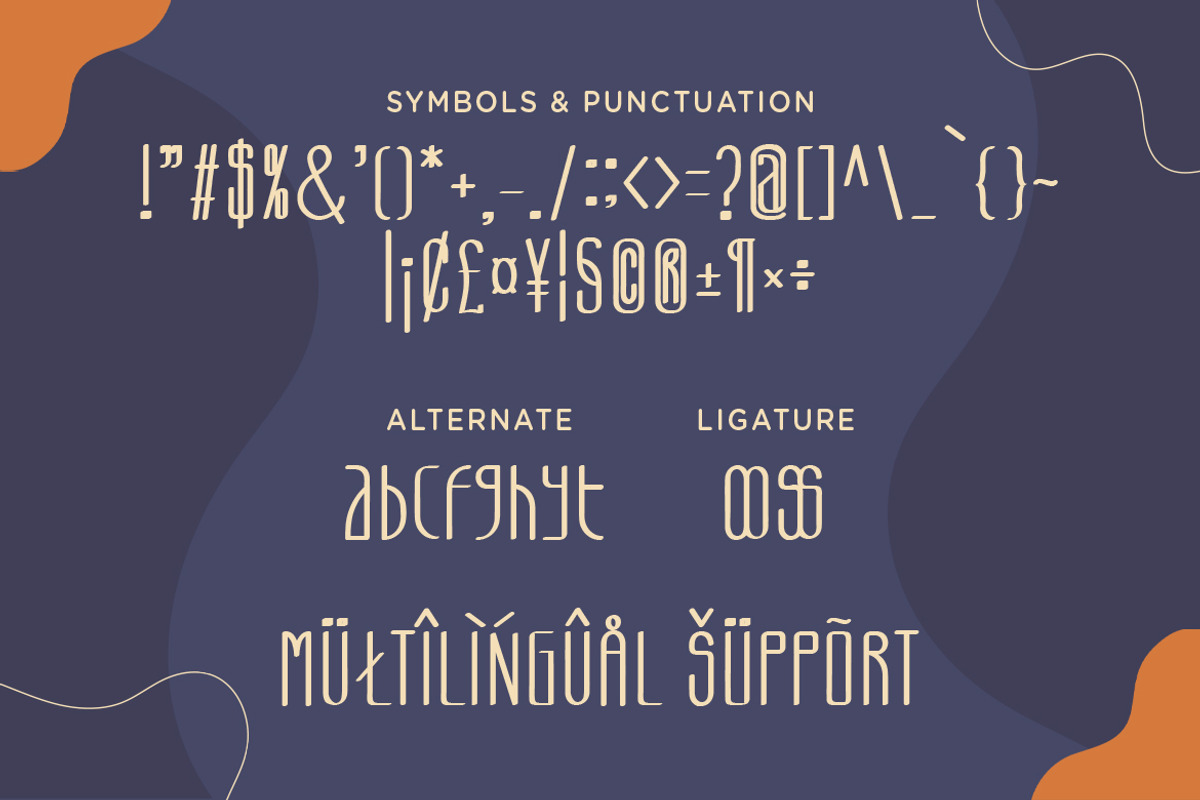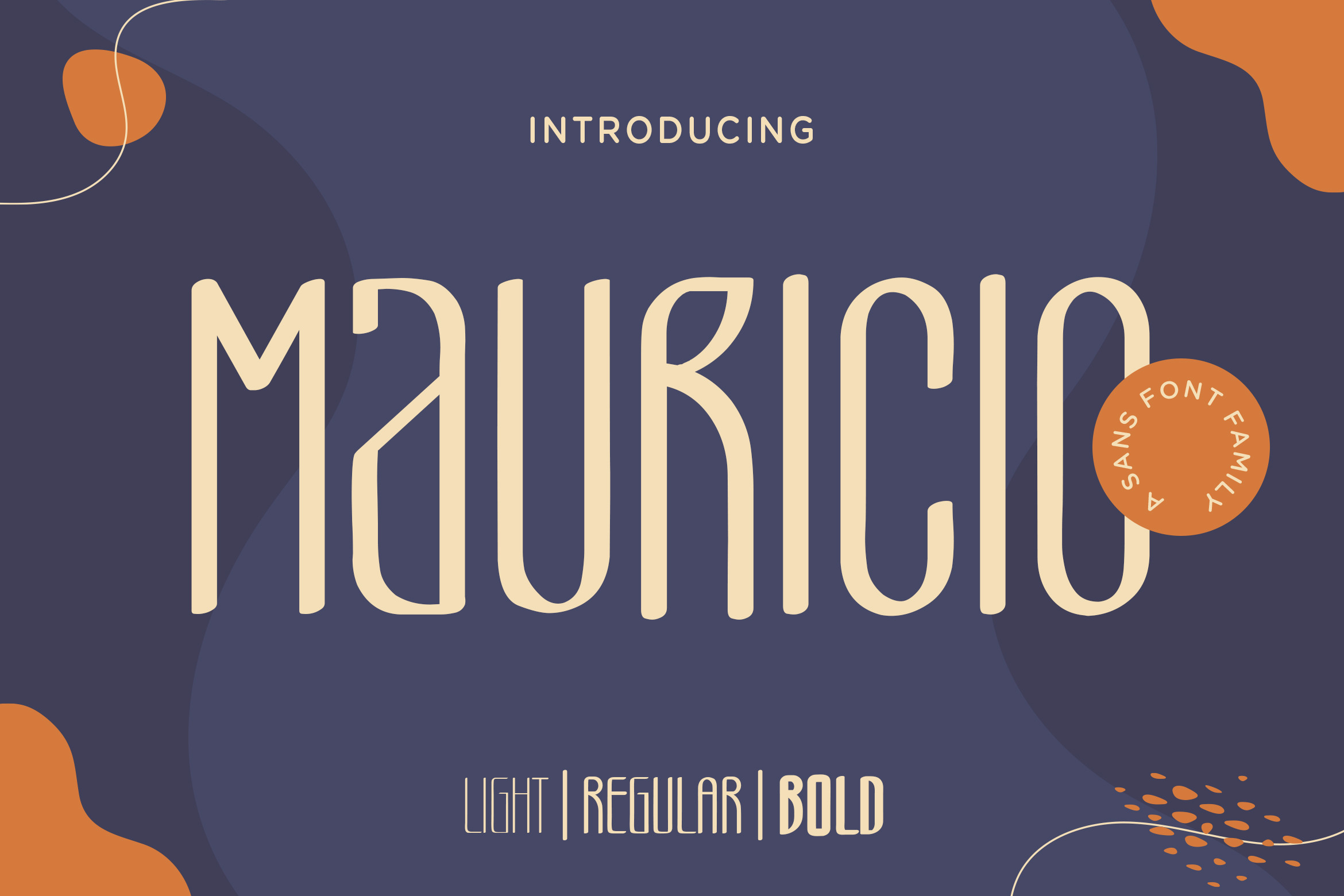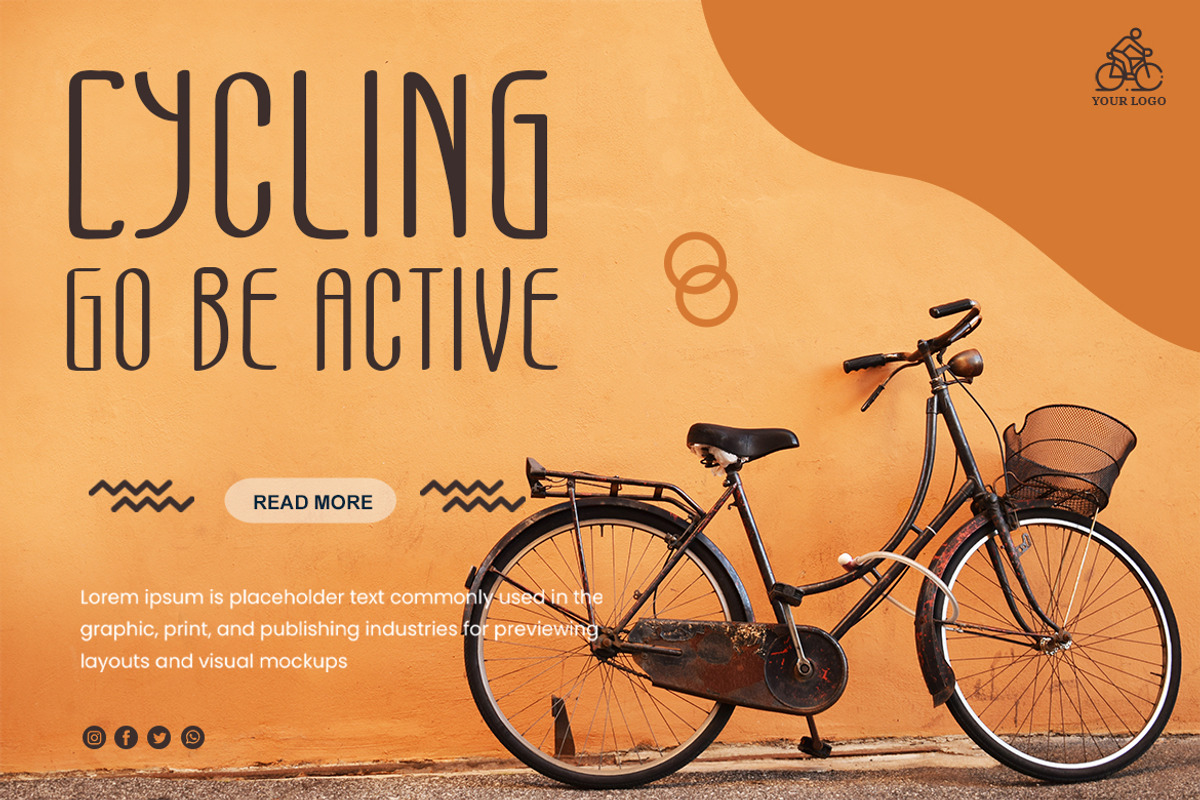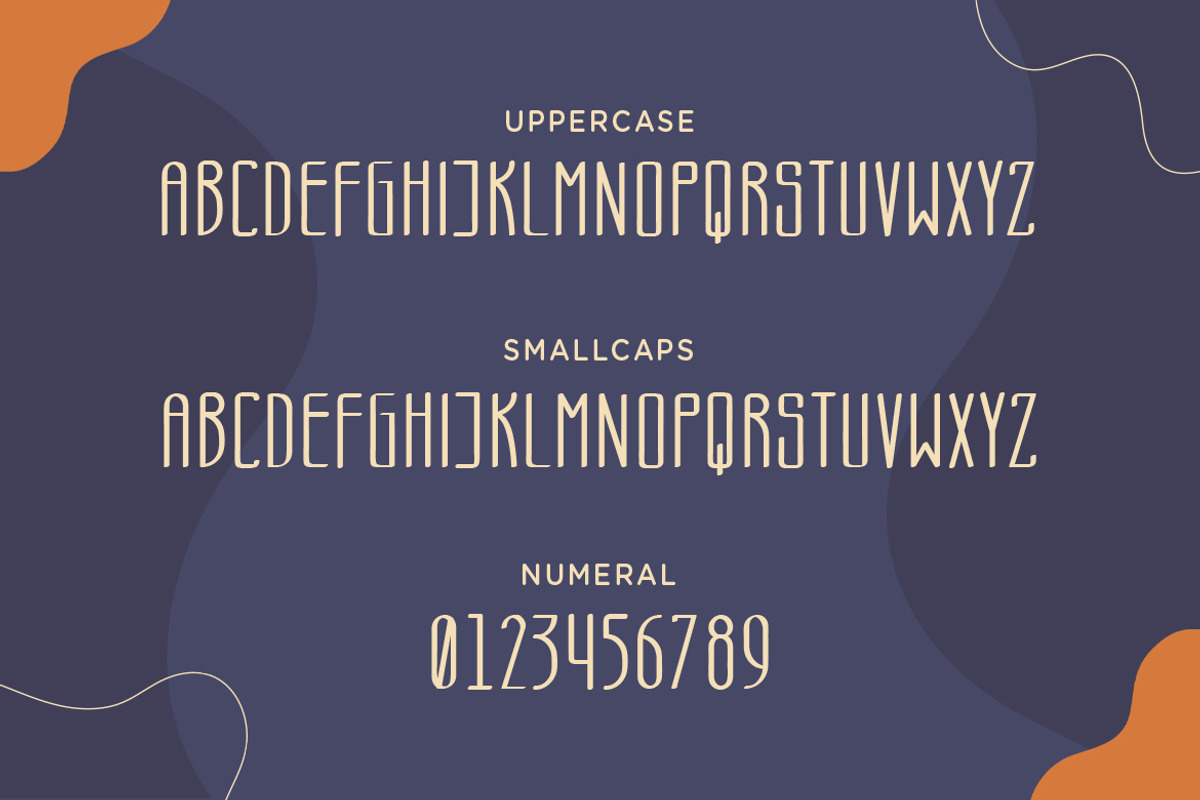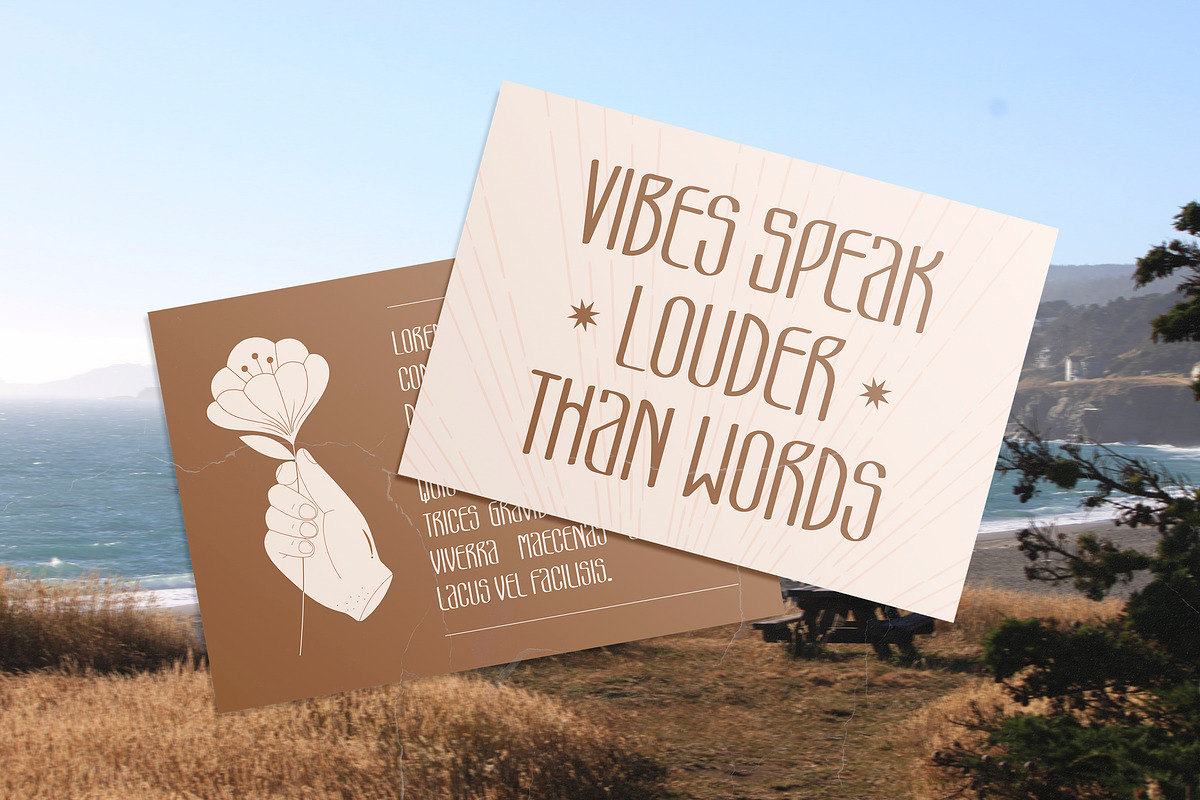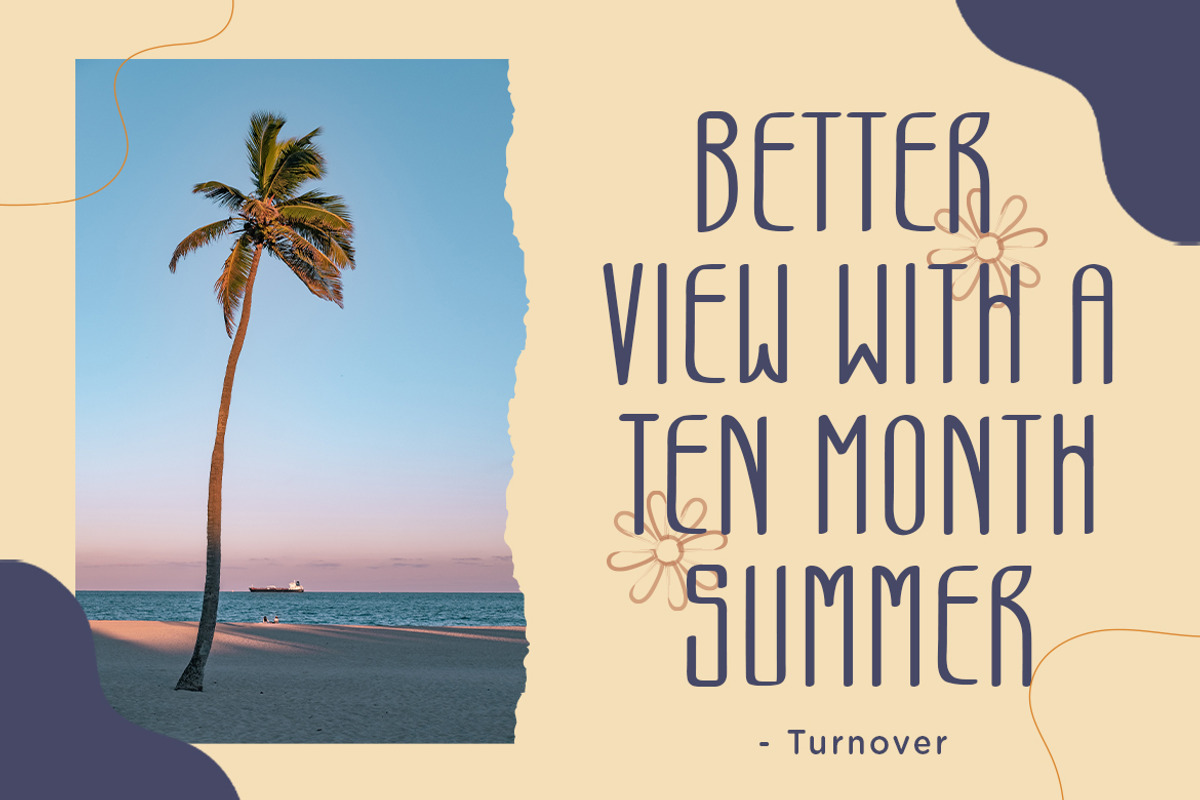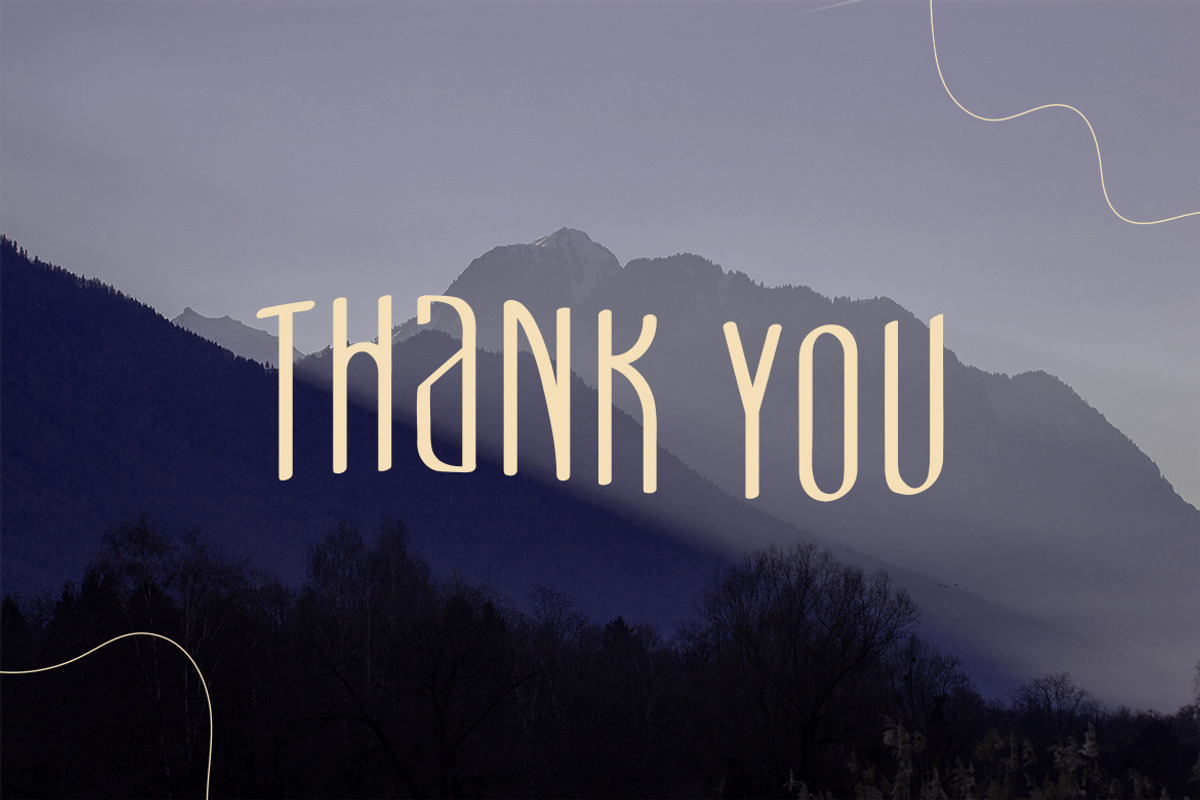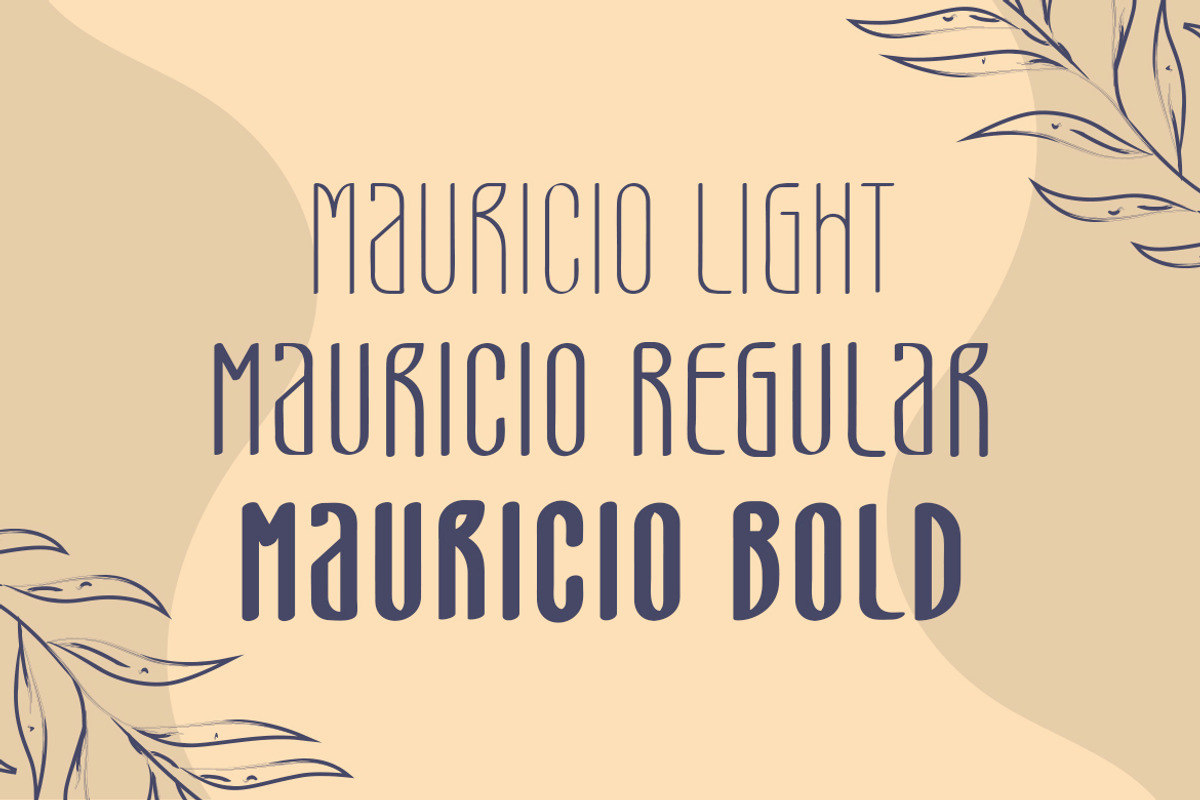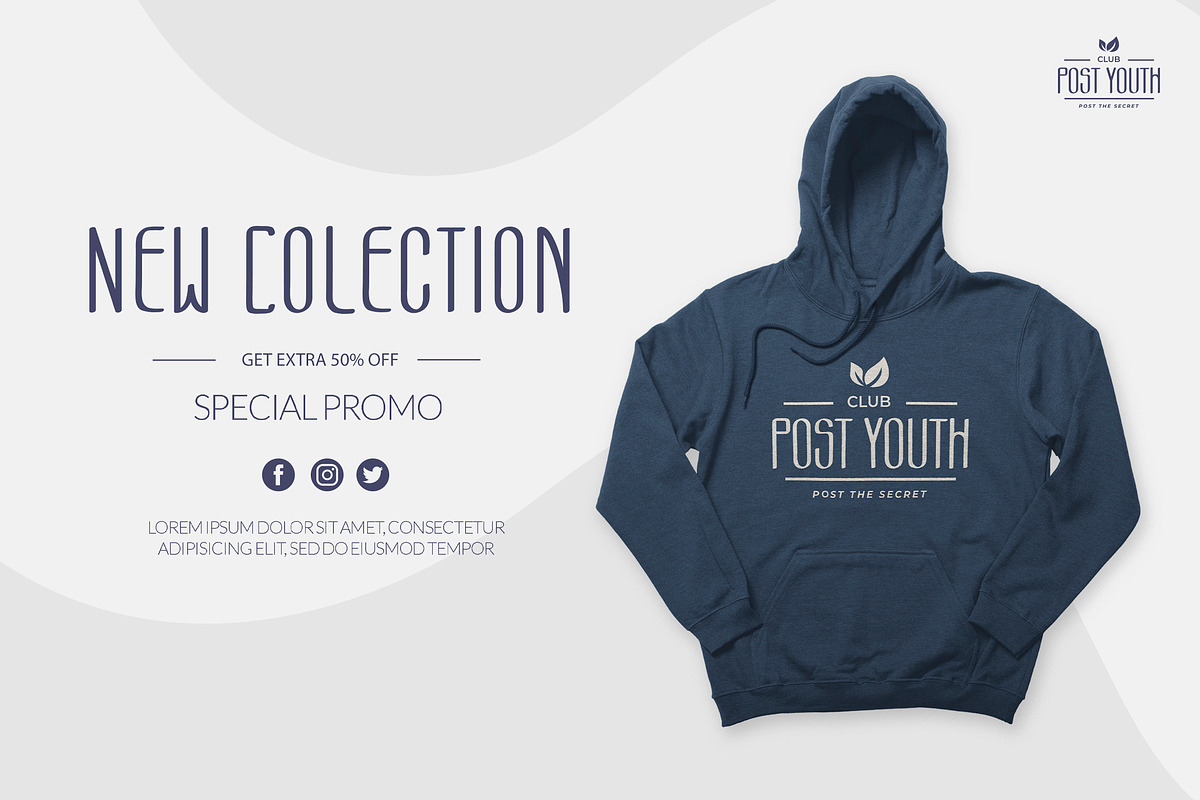
Mauricio - Sans Font Family
Mauricio is a simple sans family. It has tall feels yet unique. All included styles can be combined perfectly, giving you the opportunity to create multiple unique designs with just this one download. This font is great for logo designs, quotes, album covers, business cards, and much more!
- Smallcaps
- Symbols & Punctuation
- Numeral